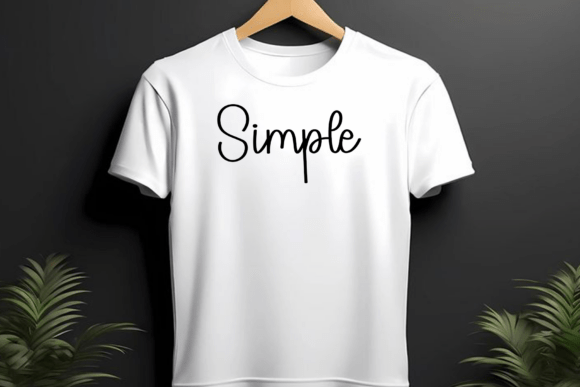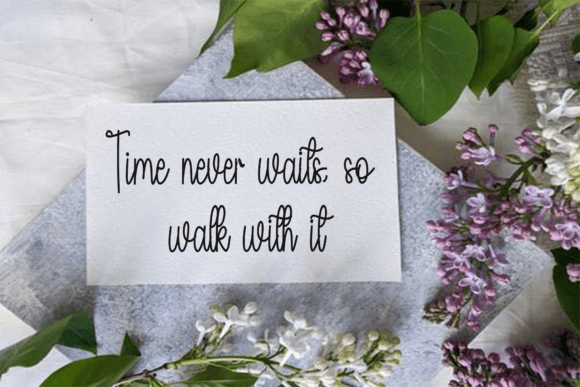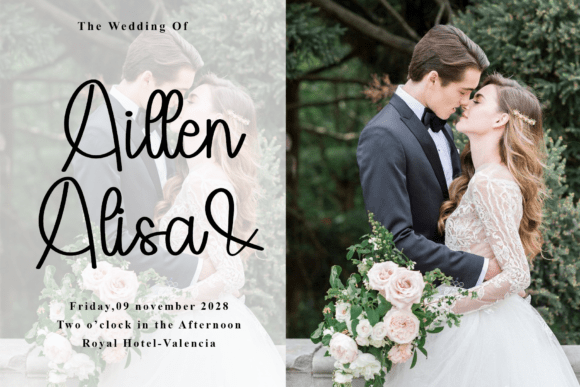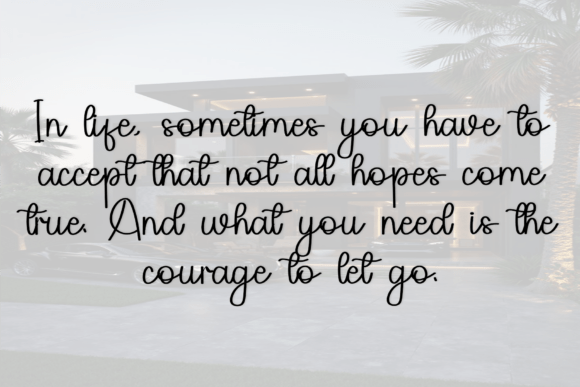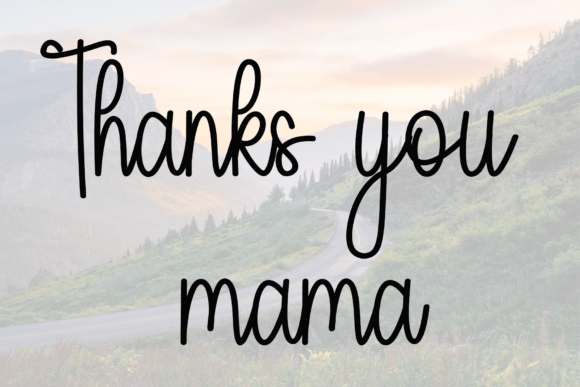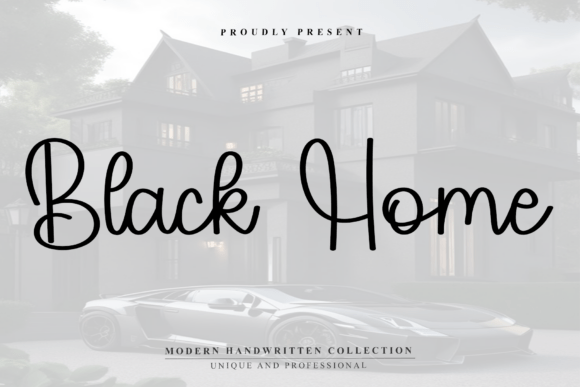
Discover the Elegance of Black Home Font: A Modern Minimalist’s Dream
In the world of typography, few fonts manage to strike a balance between modern minimalism and approachable elegance. Black Home font is one such typeface that has captured the hearts of designers and crafters alike with its sleek, monolinear handwritten style. This versatile font is not just a visual treat but a powerful tool for creating stunning designs that exude professionalism and sophistication.
The Essence of Black Home Font
Black Home font embodies the essence of modern minimalism, offering a clean and airy feel that is both refreshing and captivating. Its tall, slender characters with soft curves give it a unique personality that is hard to overlook. This typeface is meticulously designed to bridge the gap between casual handwriting and high-end editorial design, making it an excellent choice for a wide range of design projects.
Ideal Applications for Black Home Font
One of the standout features of Black Home font is its versatility. It can be used in various design applications, including:
- Interior Design Branding: The sleek and modern look of Black Home font makes it perfect for interior design brands looking to establish a sophisticated and elegant identity.
- Real Estate Logos: For real estate companies, the font’s professional and approachable feel can help in creating a trustworthy and appealing brand image.
- Contemporary Lifestyle Magazines: The clean and airy nature of the font makes it an excellent choice for magazine covers and editorial content, adding a touch of elegance and refinement.
- Product Packaging: Black Home font can elevate product packaging designs, adding a touch of sophistication and luxury to the product.
- Signature-Style Watermarks: The font’s elegant look makes it perfect for use as watermarks in photography and other creative works.
- Elegant Website Overlays: Adding a touch of elegance to website overlays, Black Home font can help in creating a visually appealing and professional online presence.
Design Tips: Pairing Black Home Font for Maximum Impact
To truly harness the potential of Black Home font, pairing it with complementary fonts can create a dynamic and visually appealing design. A bold sans-serif font can provide a striking contrast to the elegant, cursive feel of Black Home font. This combination not only adds visual interest but also creates a balance between modernity and sophistication, making your design stand out as unique and professional.
The Benefits of Using Black Home Font
Black Home font offers several benefits that make it a go-to choice for designers:
- Versatility: Its adaptability across various design projects, from branding to editorial design, makes it a valuable asset in any designer’s toolkit.
- Elegance: The font’s sleek and modern look adds a touch of elegance to any design, making it perfect for luxury brands and high-end projects.
- Readability: Despite its elegant and slender design, Black Home font maintains excellent readability, making it suitable for both headings and body text.
Creative Projects with Black Home Font
Black Home font is not just limited to professional branding and editorial design. Its unique charm can also be leveraged for more personal and creative projects:
- Personal Branding: For individuals looking to create a personal brand, Black Home font offers a sophisticated and modern approach to establishing an online or offline presence.
- Photography Watermarks: The elegant look of the font makes it perfect for photographers looking to add a professional touch to their work.
- Luxury Wedding Stationery: Black Home font can add a touch of luxury and sophistication to wedding stationery, making it perfect for high-end wedding designs.
- Editorial Design: For editorial designers, the font offers a fresh and modern take on traditional typography, perfect for magazine articles, blog posts, and more.
In conclusion, Black Home font stands out as a modern minimalist typeface that brings a unique blend of elegance, versatility, and professionalism to design projects. Whether you’re a designer looking to elevate your branding, a photographer seeking to watermark your images with a touch of sophistication, or a crafter aiming to add a modern touch to your projects, Black Home font is an excellent choice. Its ability to bridge the gap between casual handwriting and high-end editorial design makes it a valuable tool in creating visually appealing and effective designs.